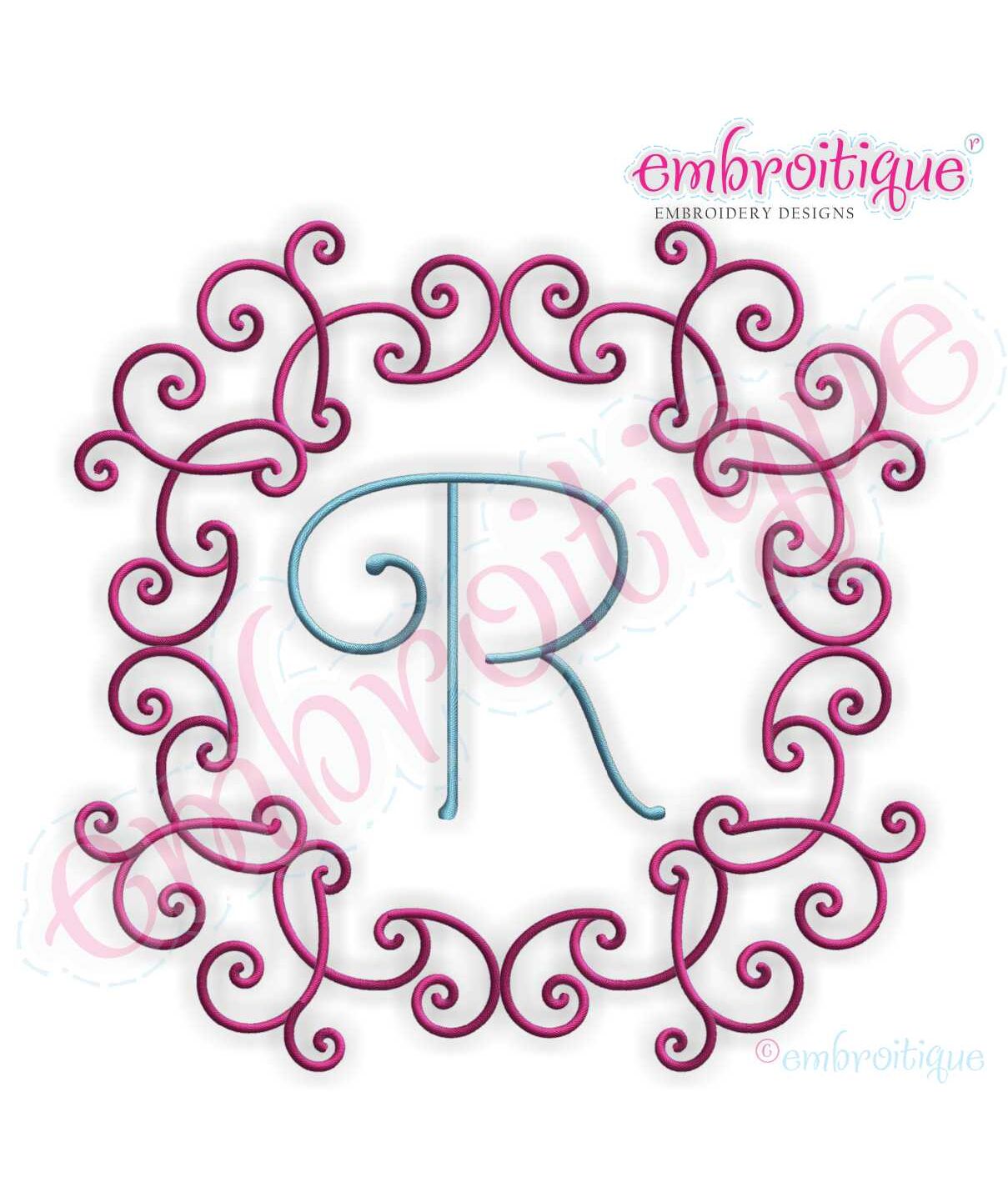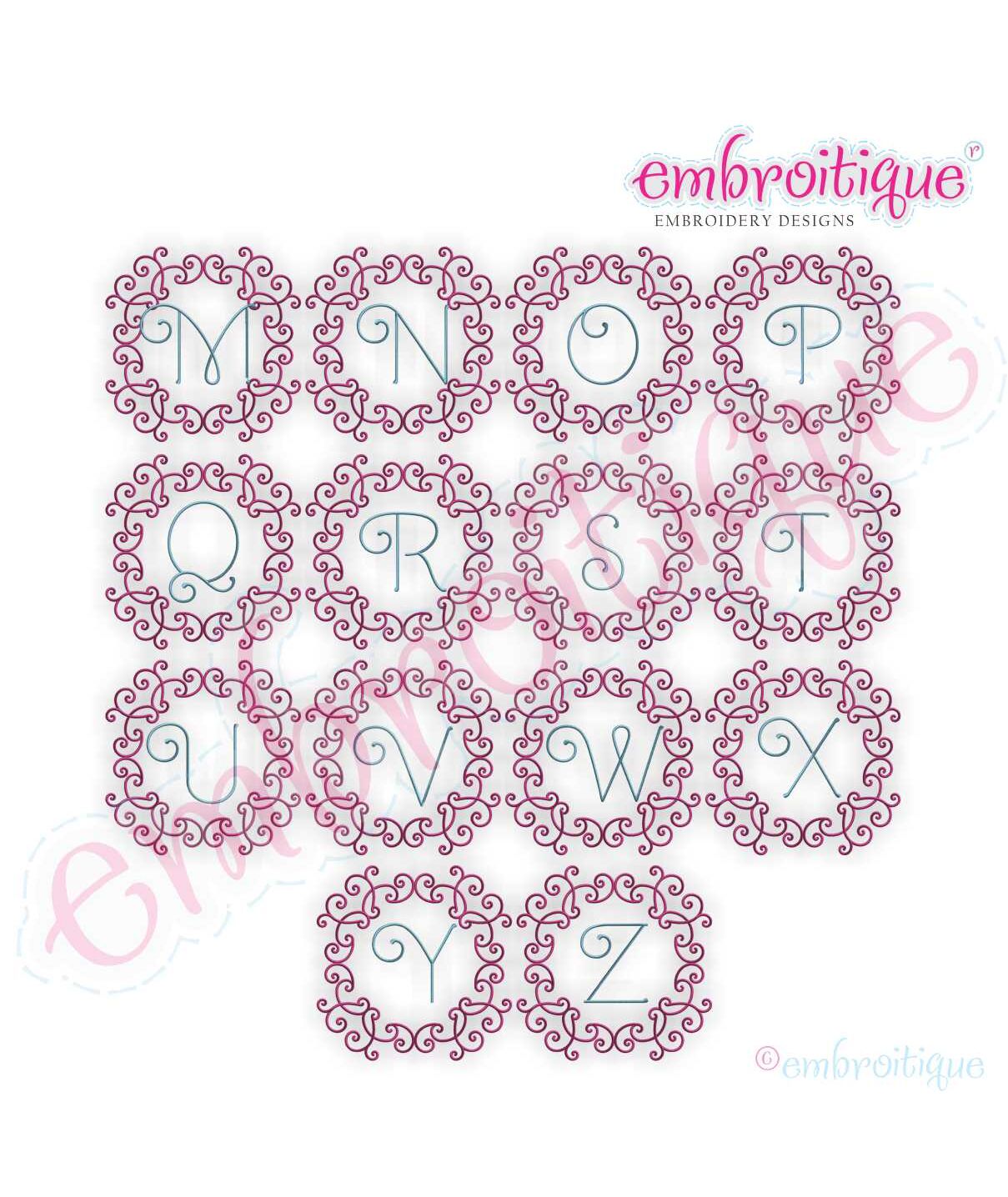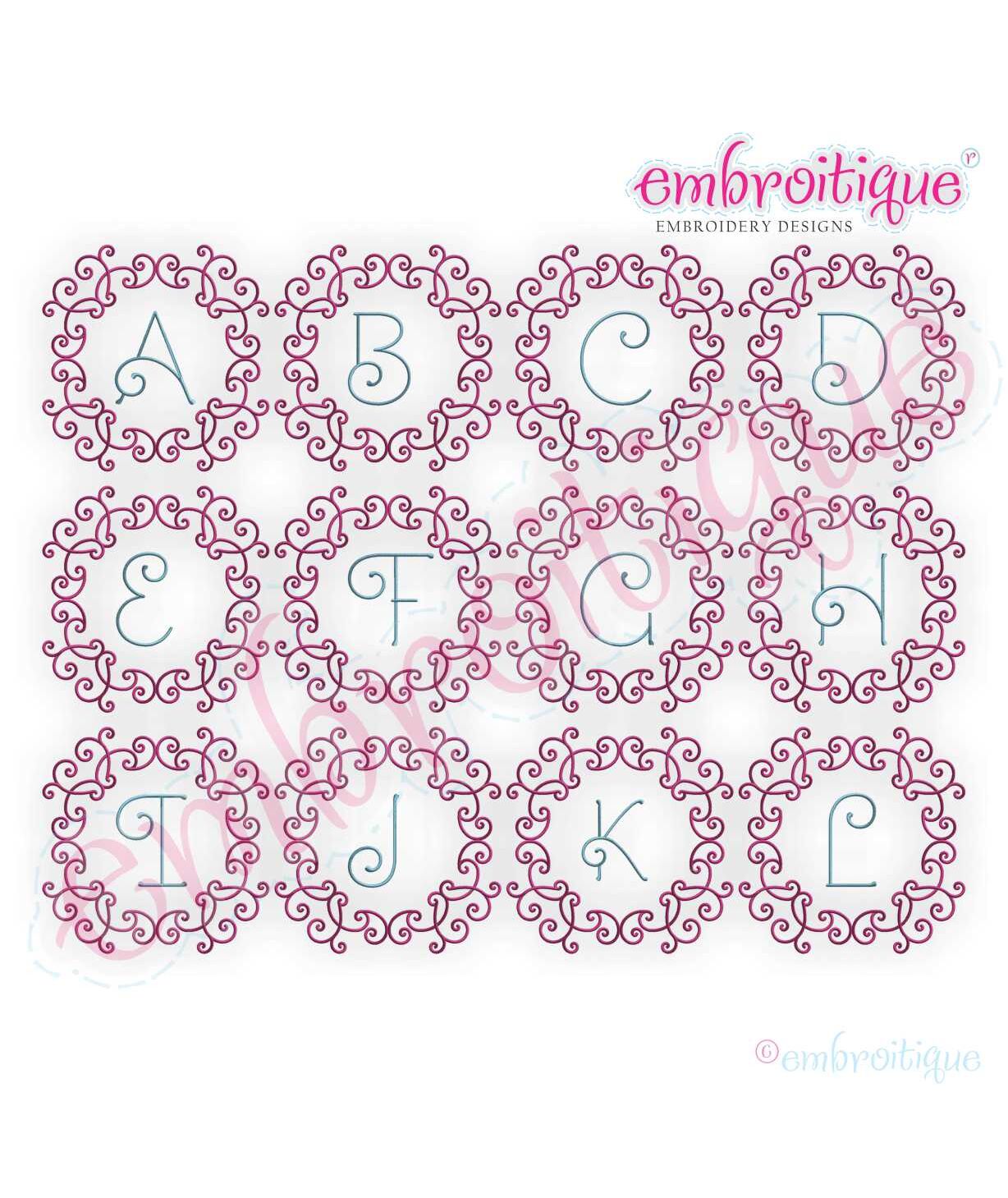
Romance Fancy Framed Monogram Initial Alphabet Font for Machine Embroidery
the perfect embellishment for any project you can imagine. Each letter is
framed with this curley frame - 2", 3", 4", 5", 6", 7" & 8" sizes included.